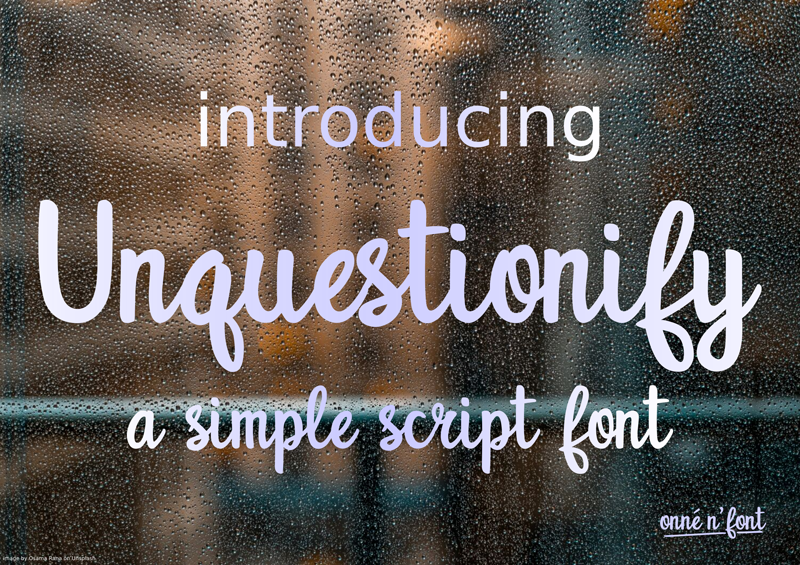
The Unquestionify is a simple script font. It�s convenient to read in any long text, yet also suitable for many other designing needs. The full version you can find it in here https://www.creativefabrica.com/product/unquestionify/ref/185557/ or you can mail me at onne.hermaone@gmail.com thank you. |